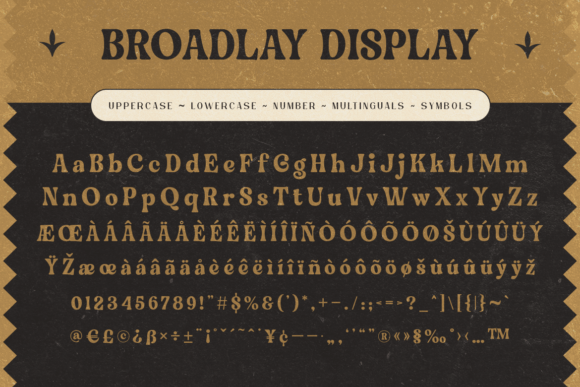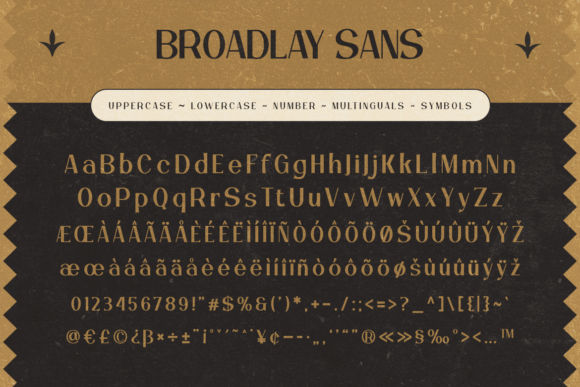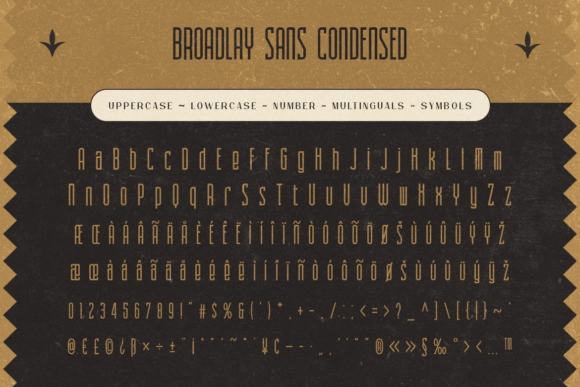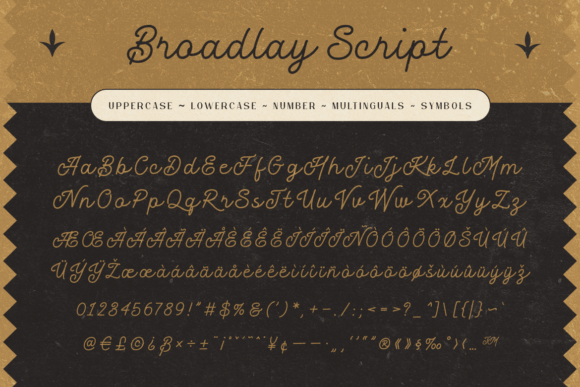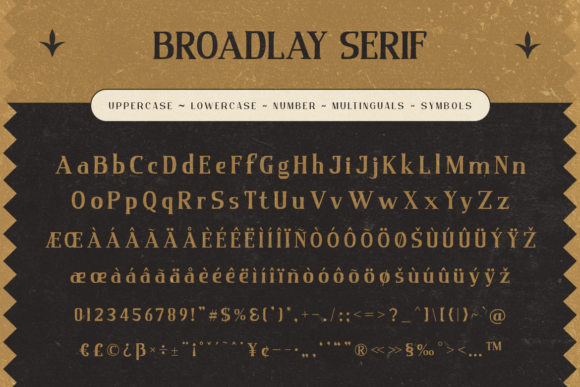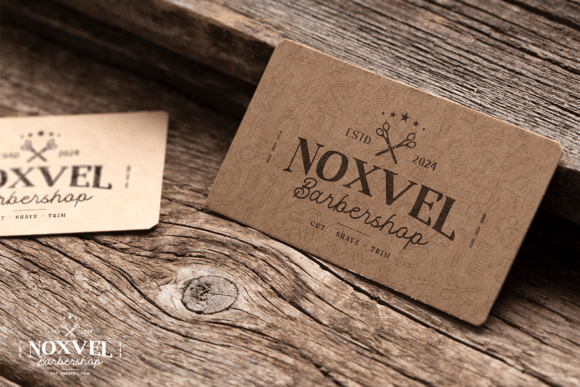
Introduction to Broadlay Font
Broadlay is a comprehensive vintage font package that brings the charm of the past to your modern design projects.
This collection features a range of typefaces inspired by classic signage, advertisements, and typography from bygone eras Each font in the Broadlay package exudes nostalgia and character, making it ideal for retro-themed branding, posters, packaging, and more.
Key Features of Broadlay Font
Why Choose Broadlay Font?